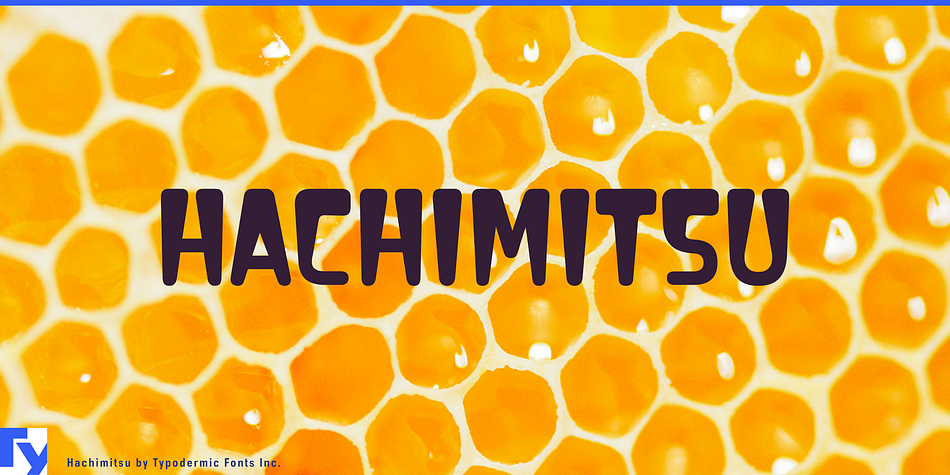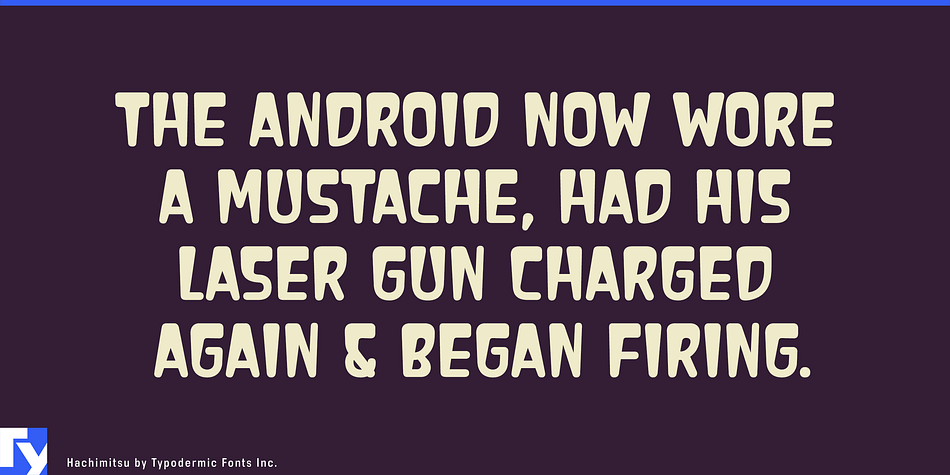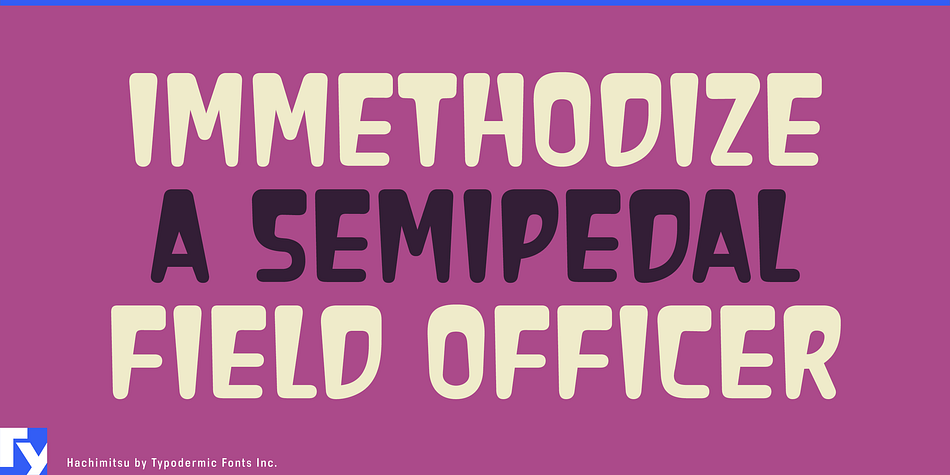
Hachimitsu is a top-heavy display typeface inspired by Japanese signs from the Showa era. It has a retro 1950s science fiction vibe and will offer your message a distinct and fascinating voice. Most Latin-based European writing systems are supported, including the following languages. Afaan Oromo, Afar, Afrikaans, Albanian, Alsatian, Aromanian, Aymara, Bashkir (Latin), Basque, Belarusian (Latin), Bemba, Bikol, Bosnian, Breton, Cape Verdean, Creole, Catalan, Cebuano, Chamorro, Chavacano, Chichewa, Crimean Tatar (Latin), Croatian, Czech, Danish, Dawan, Dholuo, Dutch, English, Estonian, Faroese, Fijian, Filipino, Finnish, French, Frisian, Friulian, Gagauz (Latin), Galician, Ganda, Genoese, German, Greenlandic, Guadeloupean Creole, Haitian Creole, Hawaiian, Hiligaynon, Hungarian, Icelandic, Ilocano, Indonesian, Irish, Italian, Jamaican, Kaqchikel, Karakalpak (Latin), Kashubian, Kikongo, Kinyarwanda, Kirundi, Kurdish (Latin), Latvian, Lithuanian, Lombard, Low Saxon, Luxembourgish, Maasai, Makhuwa, Malay, Maltese, Māori, Moldovan, Montenegrin, Ndebele, Neapolitan, Norwegian, Novial, Occitan, Ossetian (Latin), Papiamento, Piedmontese, Polish, Portuguese, Quechua, Rarotongan, Romanian, Romansh, Sami, Sango, Saramaccan, Sardinian, Scottish Gaelic, Serbian (Latin), Shona, Sicilian, Silesian, Slovak, Slovenian, Somali, Sorbian, Sotho, Spanish, Swahili, Swazi, Swedish, Tagalog, Tahitian, Tetum, Tongan, Tshiluba, Tsonga, Tswana, Tumbuka, Turkish, Turkmen (Latin), Tuvaluan, Uzbek (Latin), Venetian, Vepsian, Võro, Walloon, Waray-Waray, Wayuu, Welsh, Wolof, Xhosa, Yapese, Zapotec Zulu and Zuni.